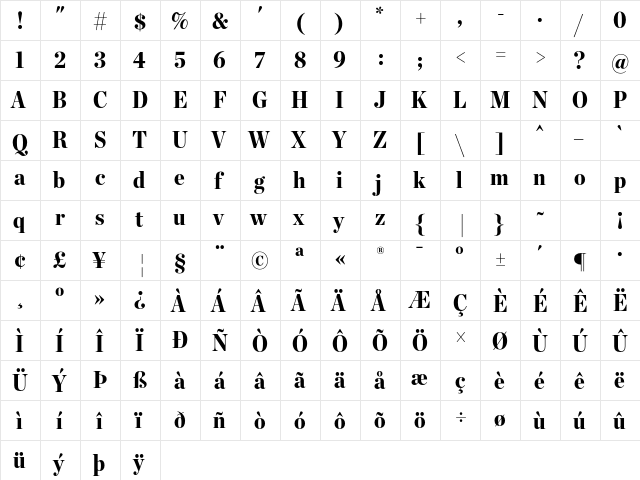
Chronicle Disp Cond Black
| Foundry | Hoefler & Frere-Jones |
| Designer | Hoefler & Frere-Jones |
Design Context for Chronicle Disp Cond Typeface
Chronicle Disp Cond offers clean, dependable letterforms without strong stylistic allegiance, making it a practical choice for designers who need flexibility. The condensed width makes it efficient for tight spaces without sacrificing legibility.